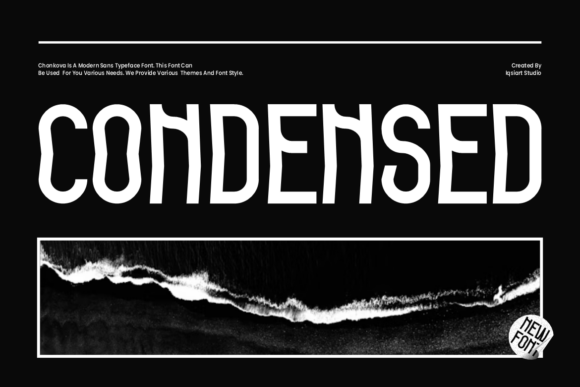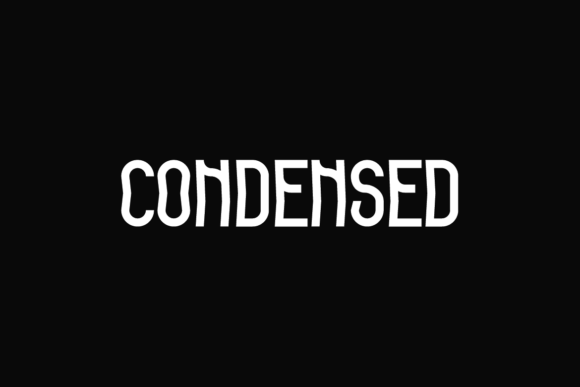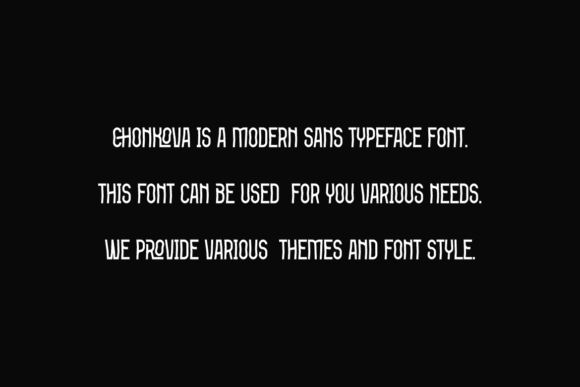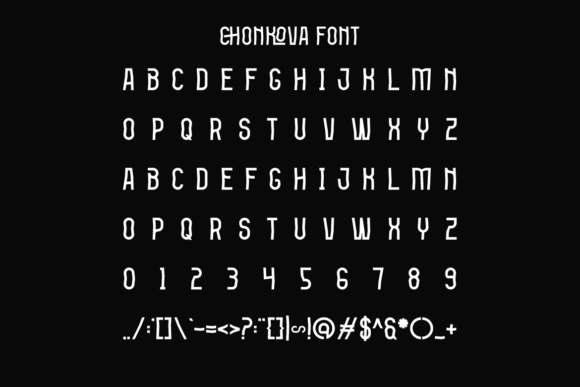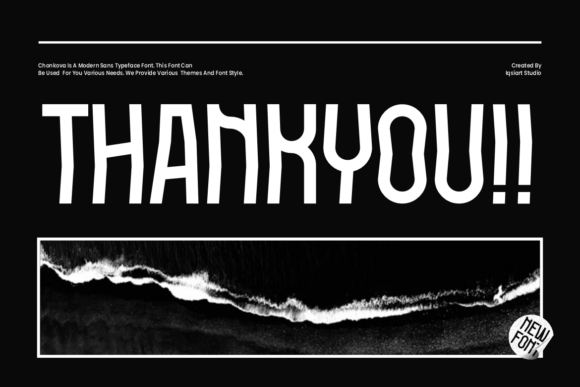
The Ultimate Guide to Chonkova Font: A Fun and Quirky Sans-Serif Delight
I’ll never forget the time I was working on a project for a client who wanted a fun and playful vibe. I had spent hours browsing through font libraries, but nothing seemed quite right. That was when I stumbled upon Chonkova Font, a quirky sans-serif typeface that instantly caught my attention. In this article, I’ll share my experience with Chonkova, its features, and how to make the most of it in your designs.
An Honest Review of Chonkova Font
What I Love About Chonkova ✨
- ✅ Versatility: Chonkova is incredibly versatile and suitable for a wide range of projects, from branding and advertising to crafting and DIY tutorials.
- ✅ Legibility: The font is clear and easy to read, even at small sizes.
- ✅ Personality: Chonkova has a unique and playful personality that adds a touch of whimsy to any design.
- ⚠️ Limited formal applications: Chonkova’s playful nature makes it less suitable for formal or professional projects that require a more serious tone.
- ⚠️ Glyph limitations: While Chonkova has a wide range of glyphs, it may not have every special character or symbol you need.
- Experiment with OpenType features like ligatures and stylistic alternates to add visual interest to your text.
The Backstory of Chonkova Font
Chonkova Font was designed by a team of creatives who wanted to create a fun and playful typeface that would add a touch of whimsy to any design. Inspired by retro advertising and vintage signage, Chonkova is a unique blend of classic and modern elements.
Q: What is Chonkova Font?
A: Chonkova Font is a fun and quirky sans-serif typeface suitable for a wide range of projects.